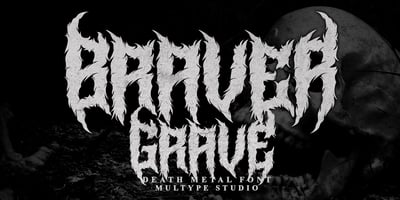
Braver Grave
Braver Grave font
Braver Grave Font Family was designed by Mulia Yanto and published by Multype Studio. Braver Grave contains 1 styles and family package options. Braver Grave is a death metal font. This font perfect for logotype death metal band, logotype death metal brand, product, merchandise death metal band, death metal band covers, rock events, rock posters, rock magazine covers, branding, product design, labels and other creative project.What’s Included : Standard glyphs Works on PC / Mac Simple installations Accessible in the Adobe Illustrator, Adobe Photoshop, Adobe InDesign, even work on Microsoft Word PUA Encoded Characters, Fully accessible without additional design software. Multilingual support Thank you for your purchase! Hope you enjoy with our font!